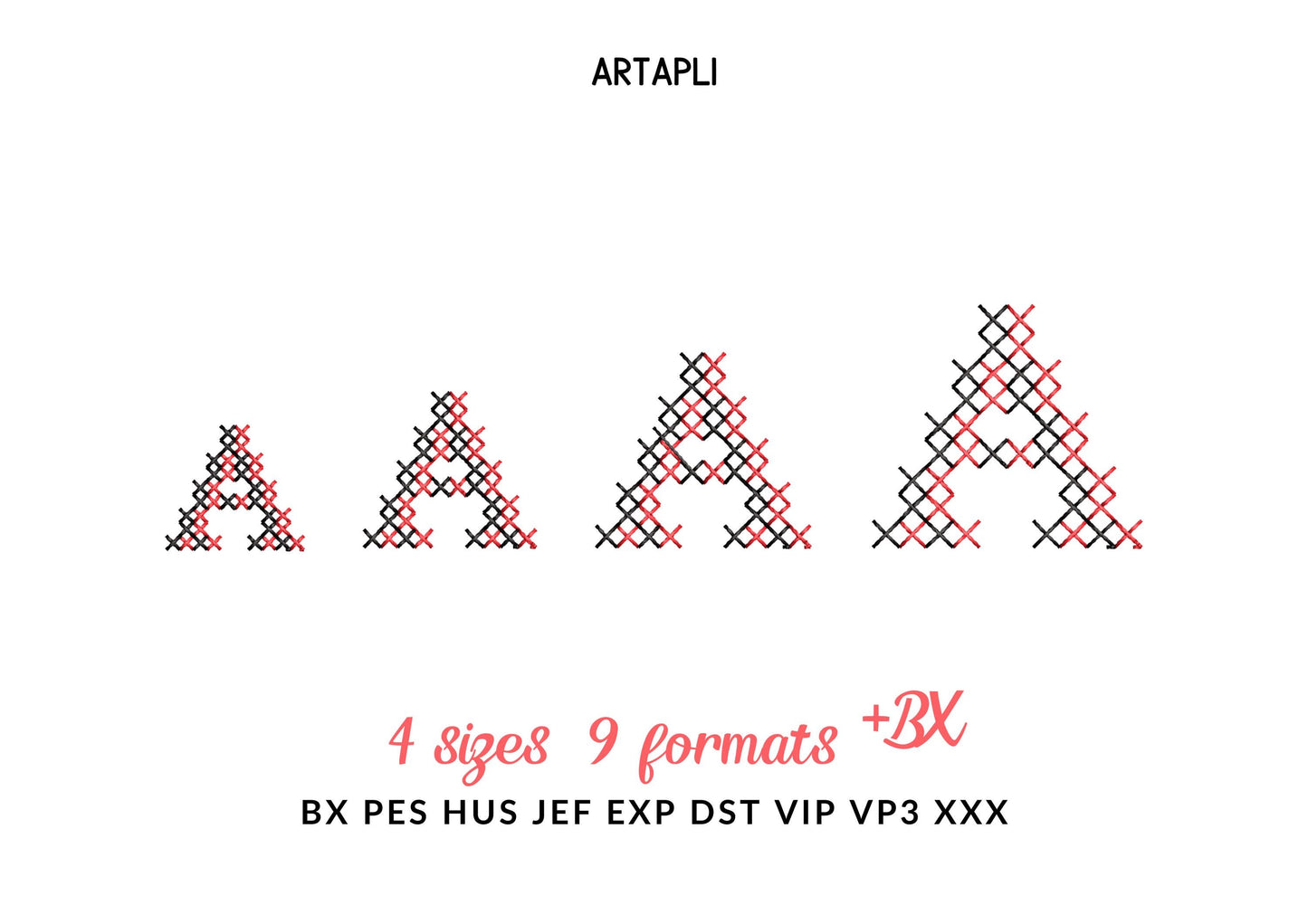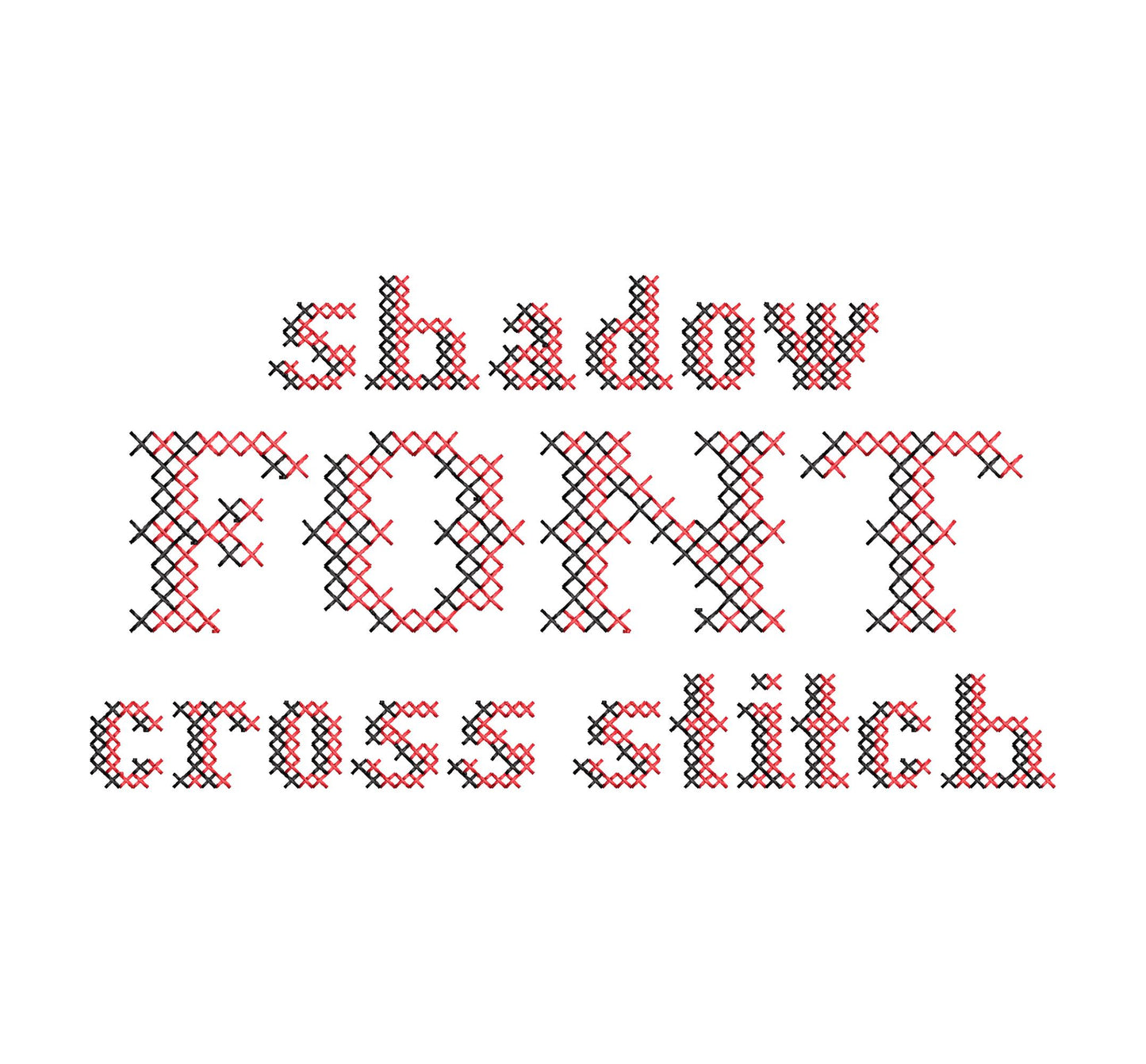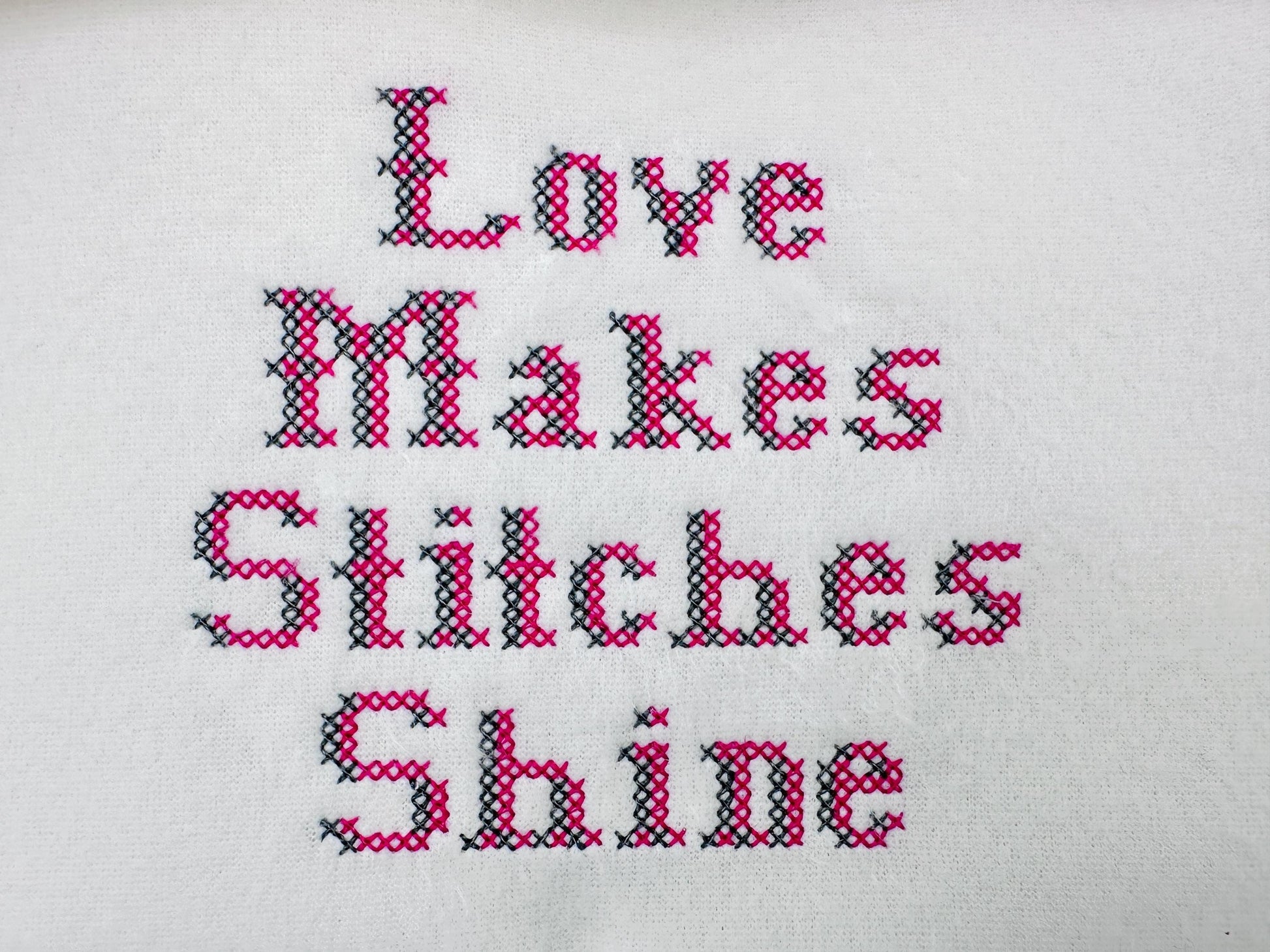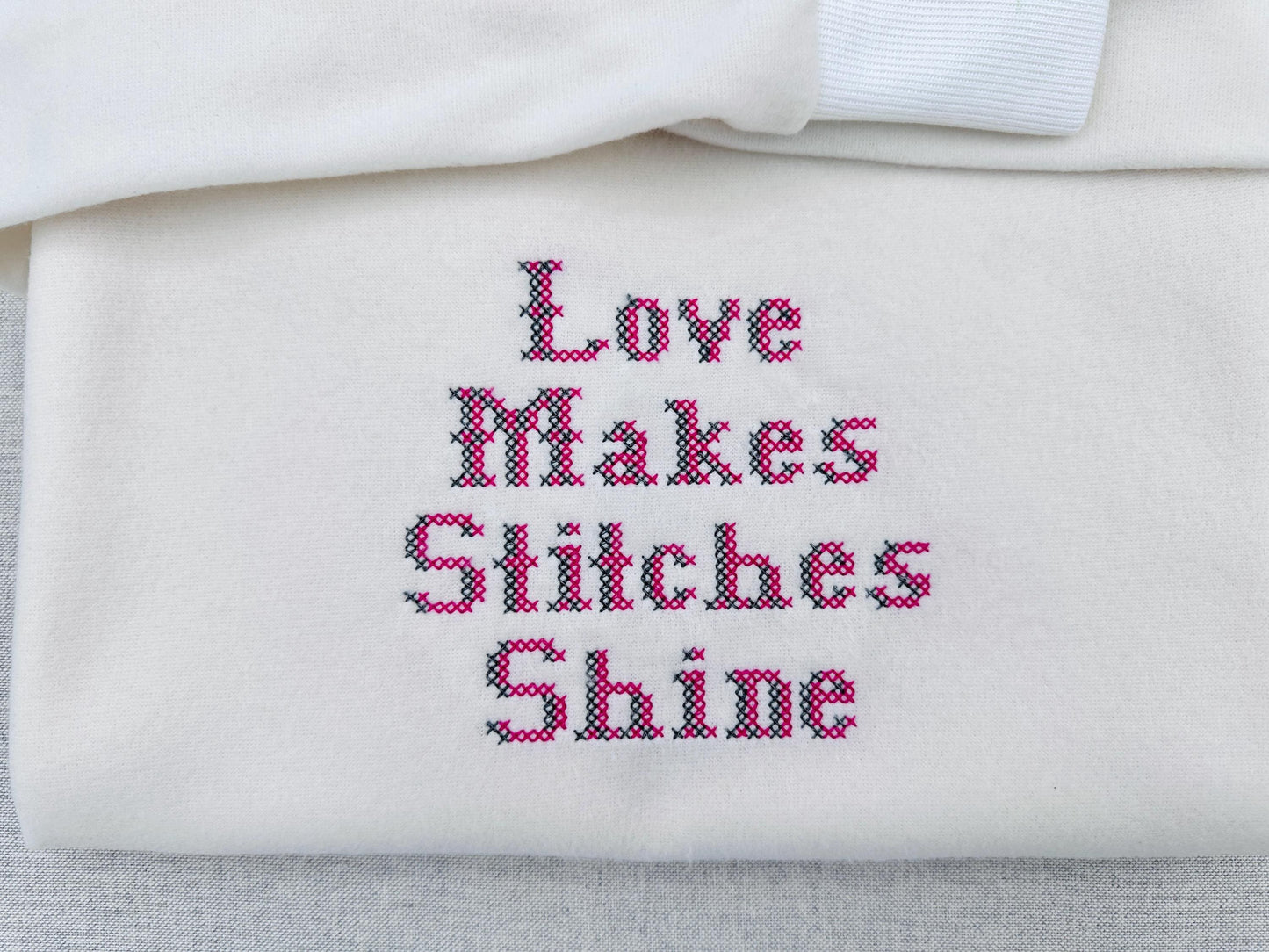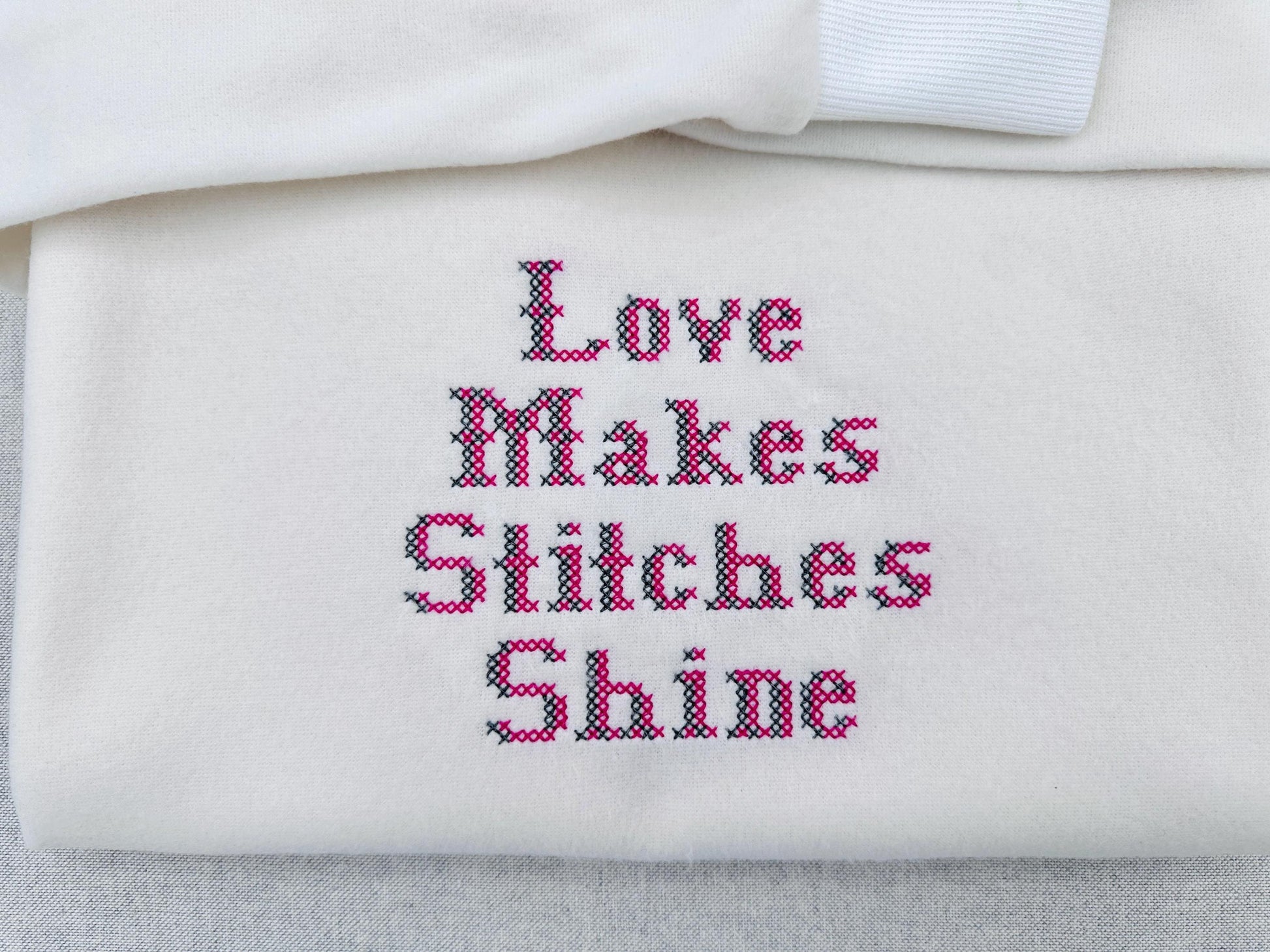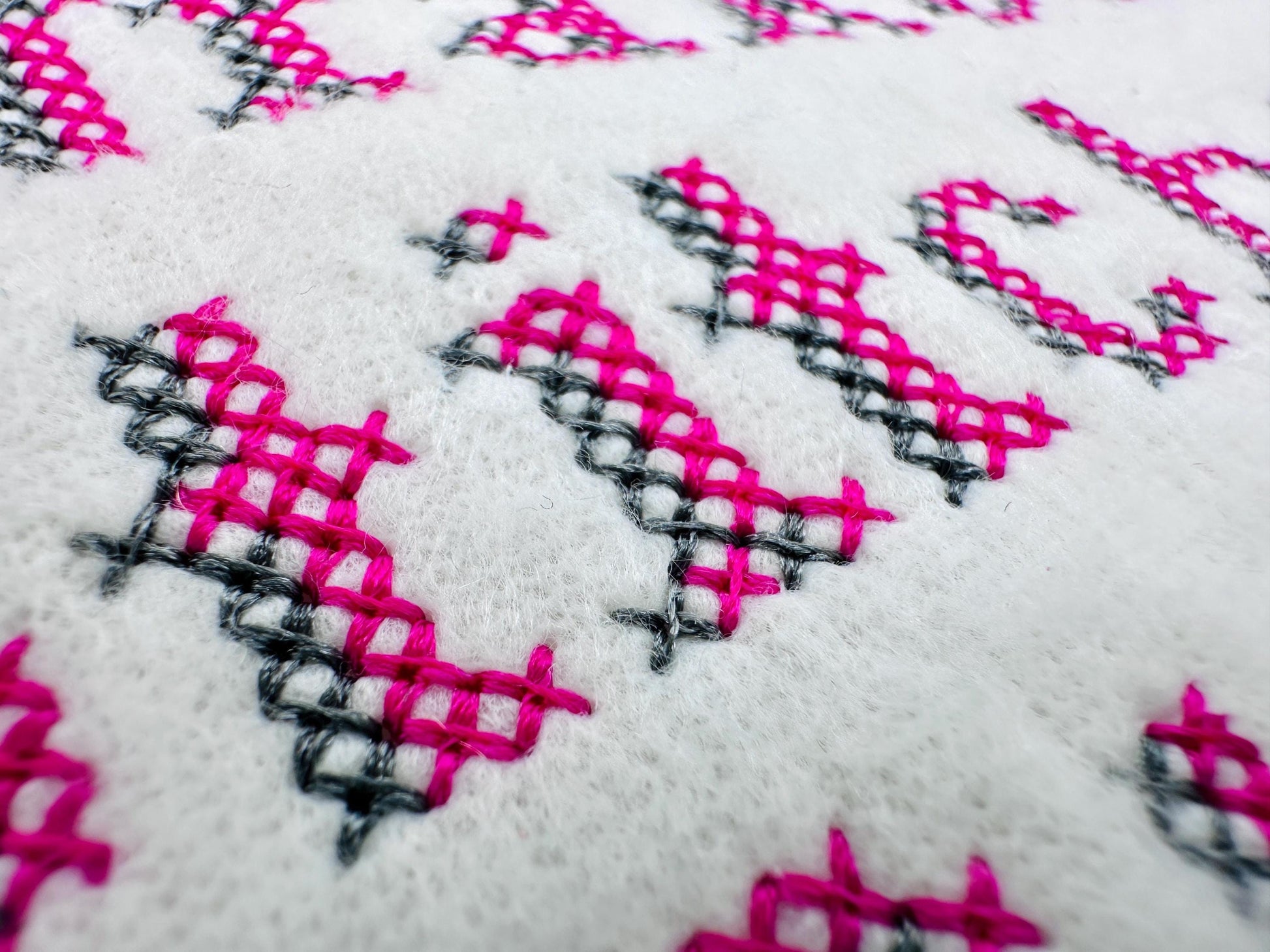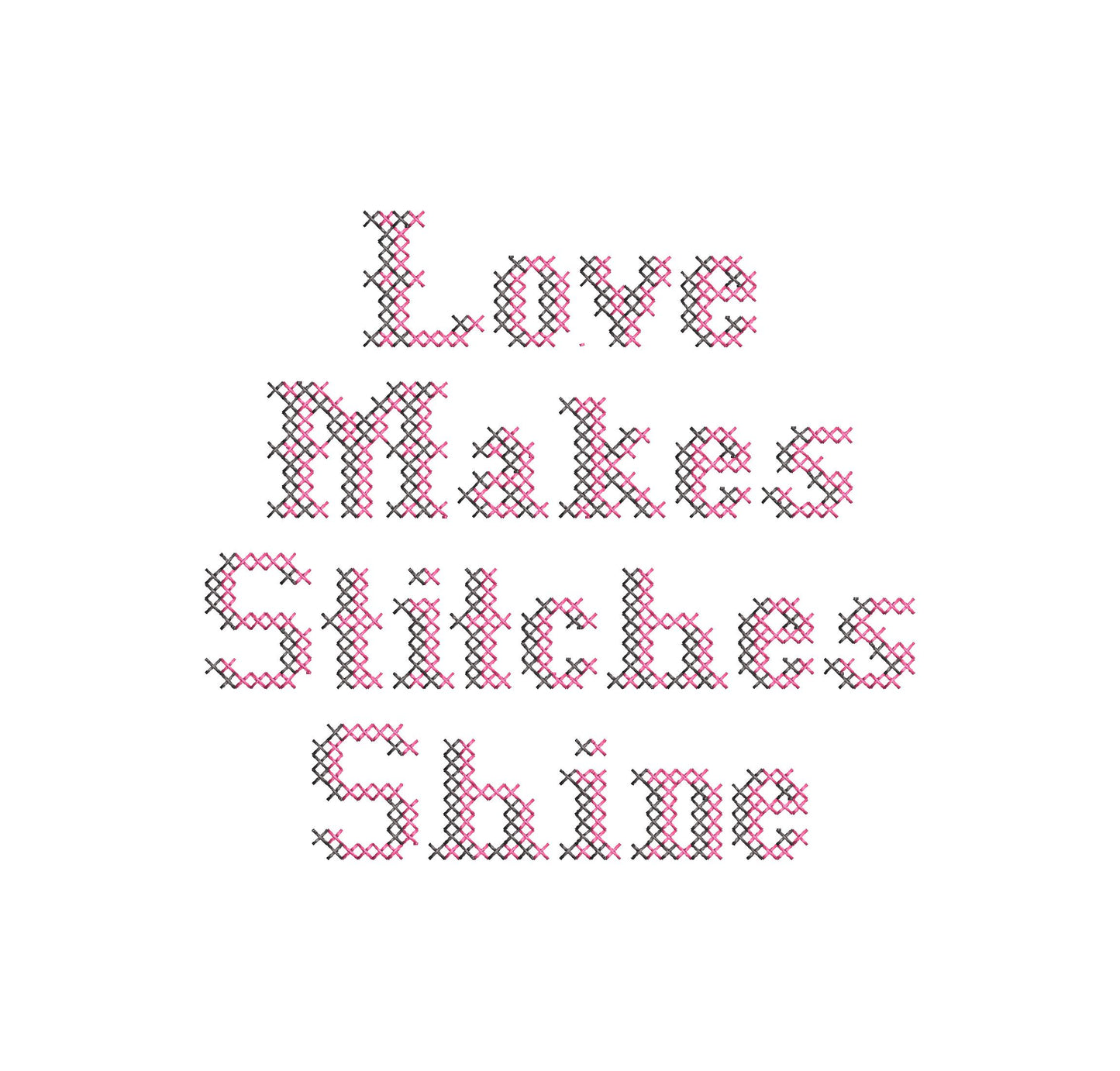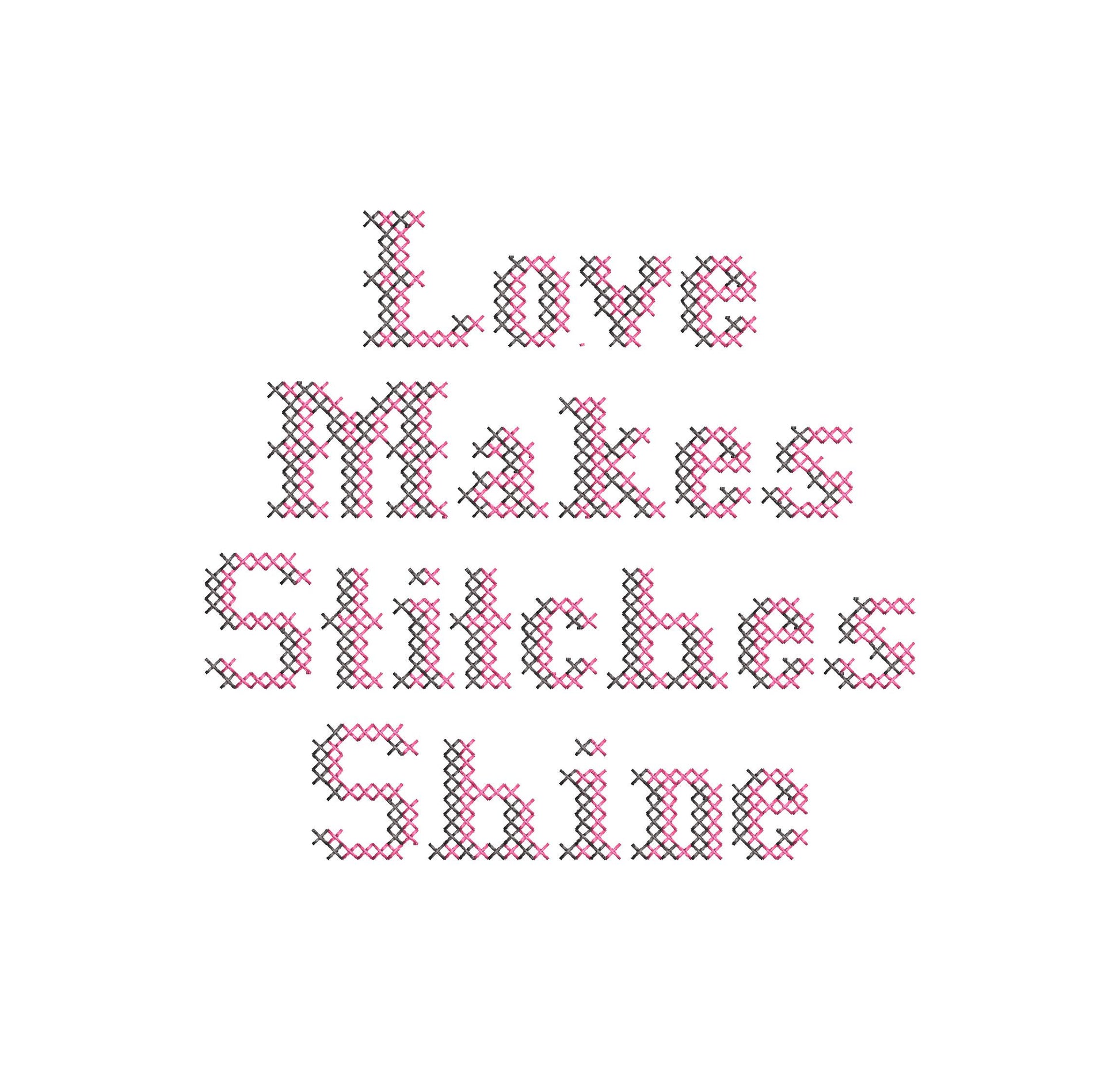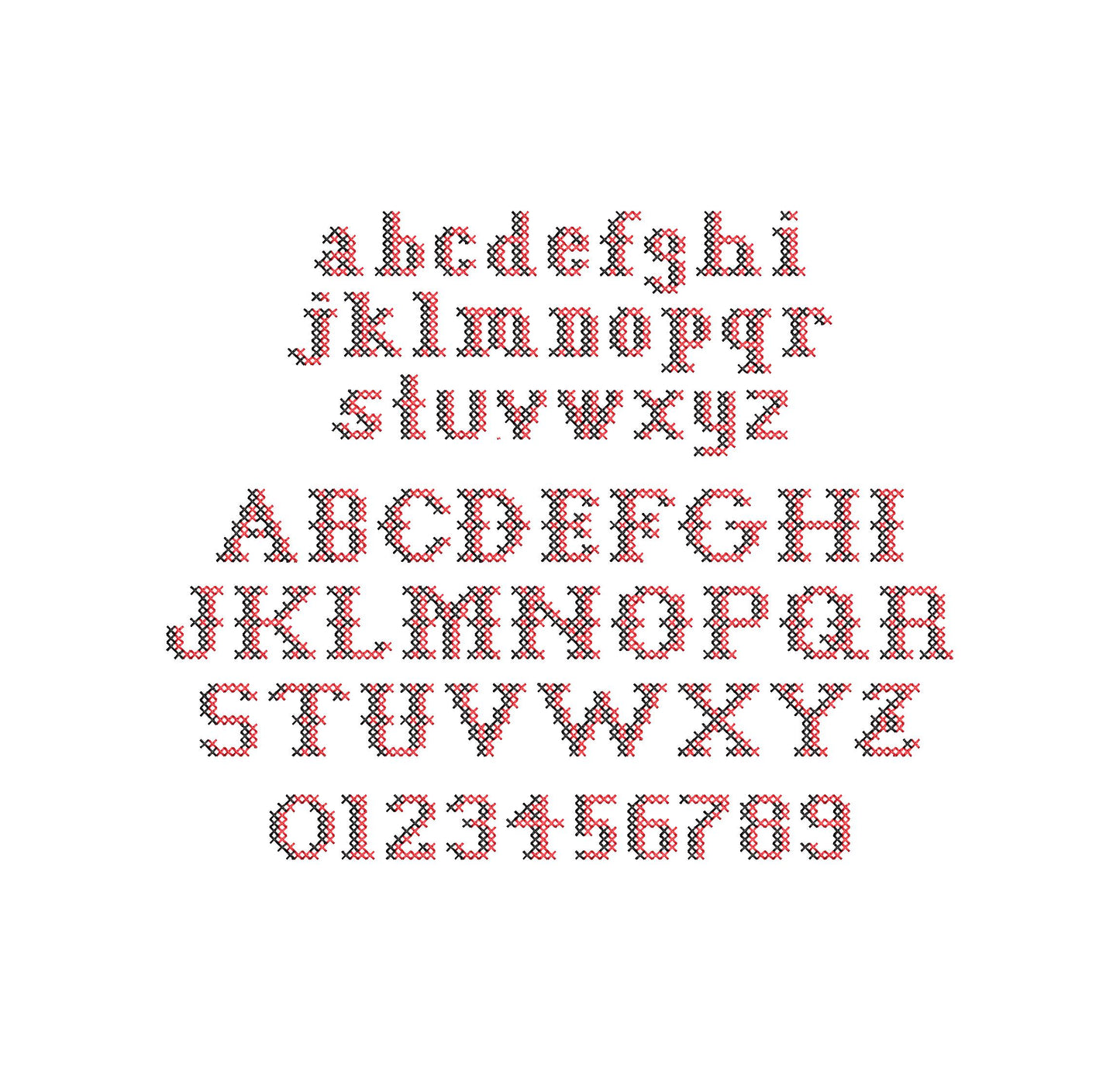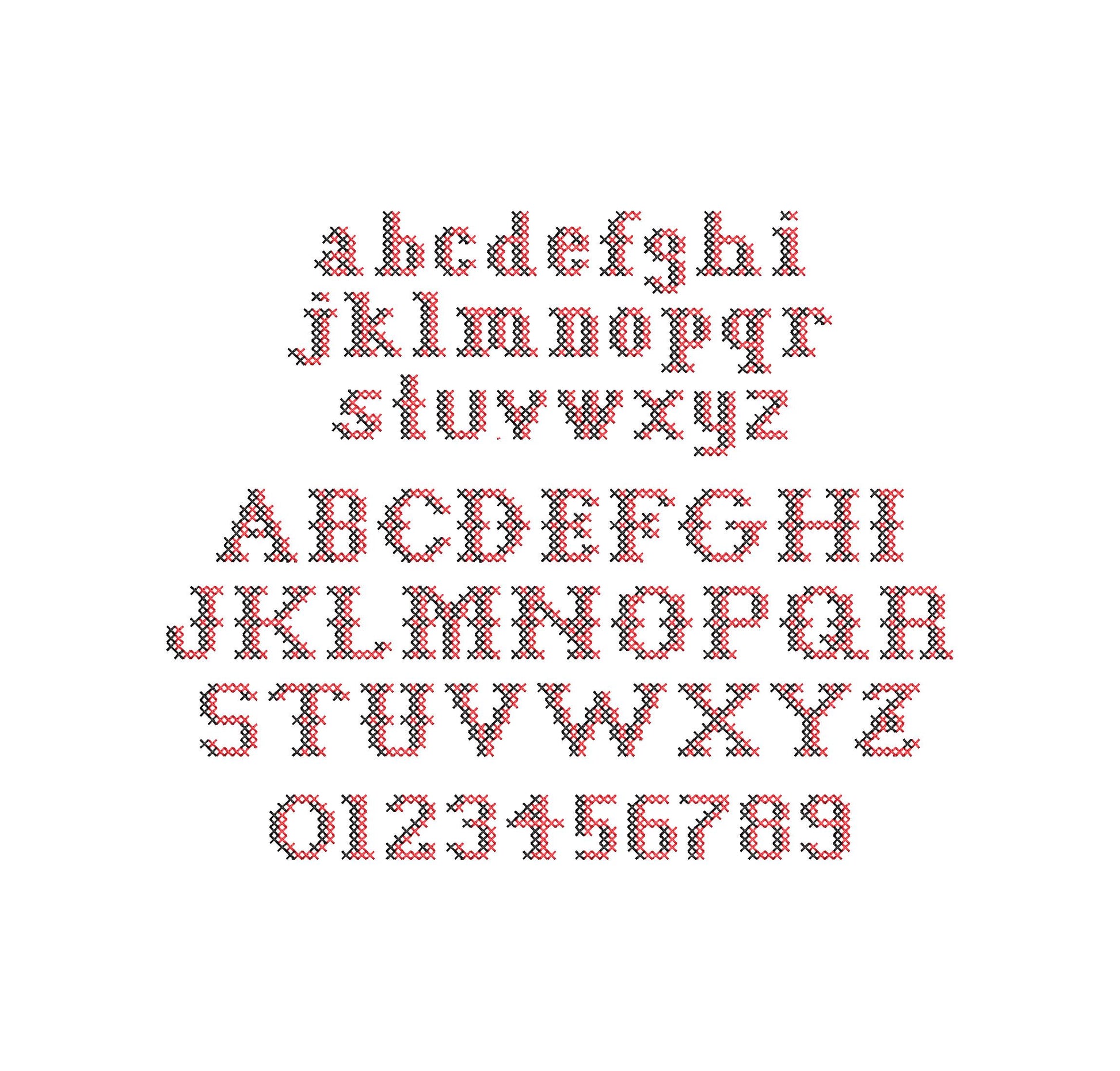
Or click to open the linkA classy cross stitch font with a shadow, in tiny sizes. Charming for small names, initials and samplers on baby clothes and gifts.
The letters come in four mini sizes: 0.6, 0.8, 1 and 1.2 inches. Stitched in real cross stitches with a soft shadow. Includes uppercase and lowercase letters A to Z and numbers 0 to 9.